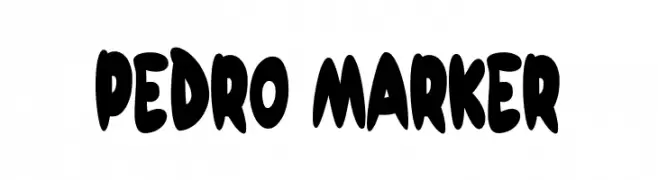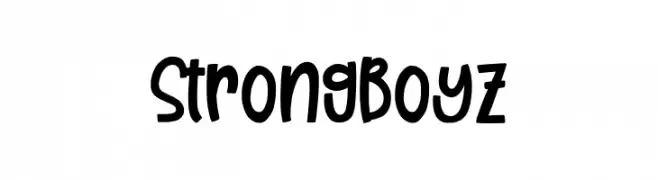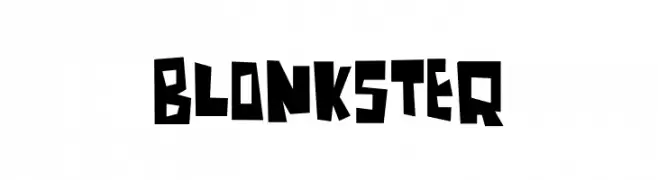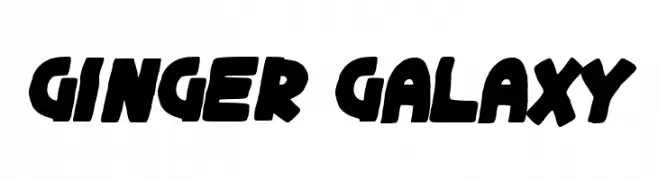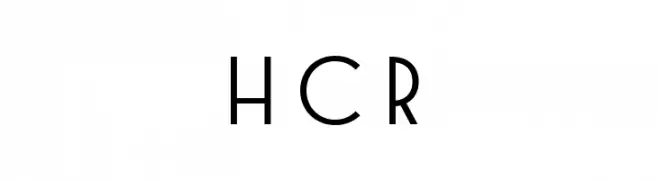
( Fonts by Kurnia Setyadi )
A bold, playful font with a hand-drawn, marker-like style.
( Fonts by Garisman Studio )
A bold, playful, hand-drawn font with a whimsical and friendly style.
A modern, clean sans-serif font with uniform stroke width and excellent legibility.
( Fonts by Kurnia Setyadi )
A bold, angular font with a playful and irregular structure.
( Fonts by Kurnia Setyadi )
A bold, rounded font with a playful and dynamic style.